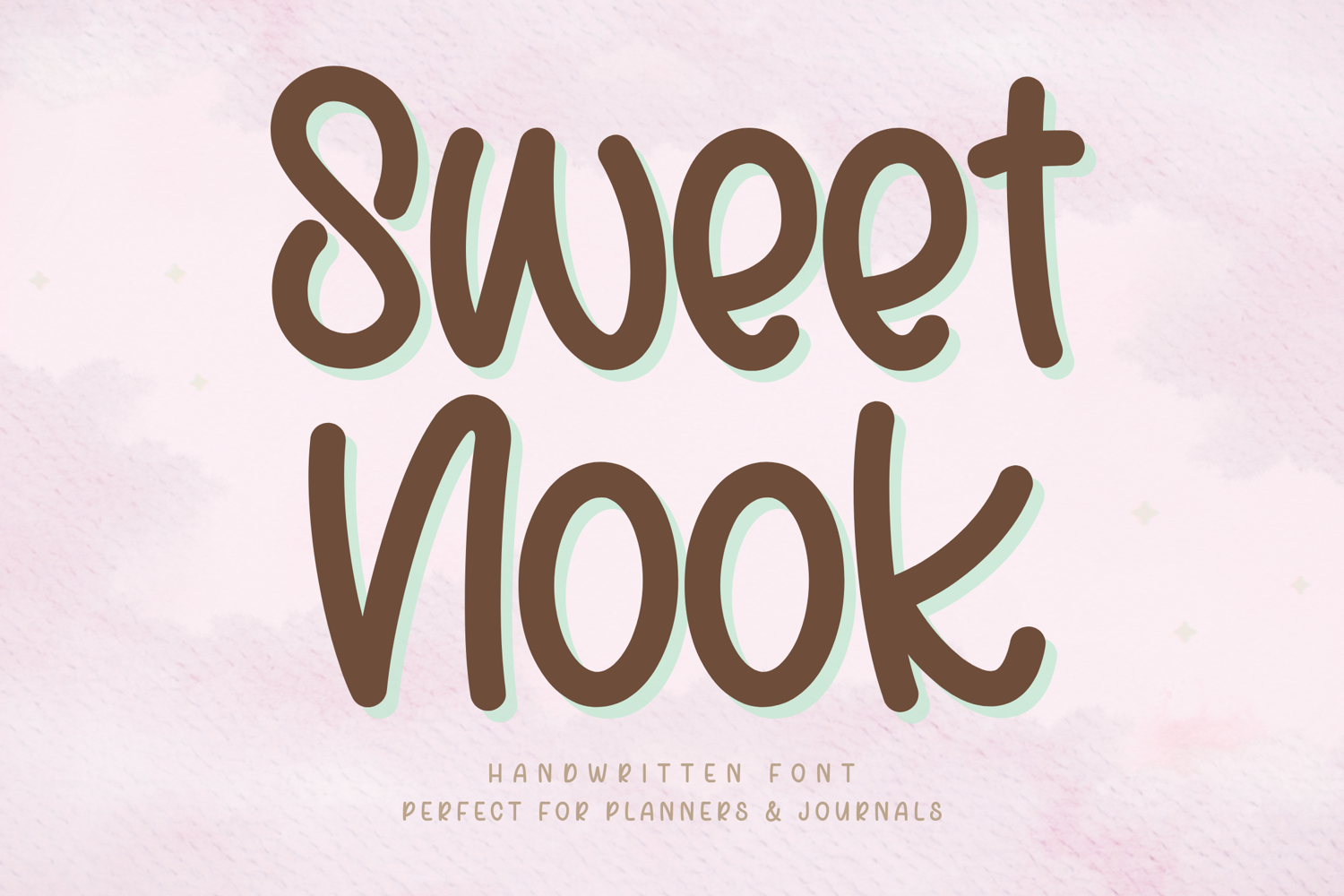
Sweet Nook - Handwritten Font
Sweet Nook – Handwritten Font
Sweet Nook is a cute and cozy handwritten font designed to bring a soft and heartwarming feel to your creative projects. With its smooth curves and rounded letterforms, this font creates a natural handwritten style while maintaining excellent clarity and readability.
Carefully crafted for everyday usability, Sweet Nook performs beautifully across a variety of applications—from digital planners and journals to Cricut projects, stickers, and social media design. Its clean and consistent strokes make it especially suitable for note-taking, planning, and daily creative use.
Key Features:
Full set of uppercase and lowercase letters
Numerals, punctuation, and symbols
Ideal For:
Cricut and cutting projects
Digital planners
Stickers and printable designs
Branding and logos
Social media graphics
Sweet Nook is designed with smooth, rounded strokes and balanced spacing, making it easy to read and comfortable for extended use.